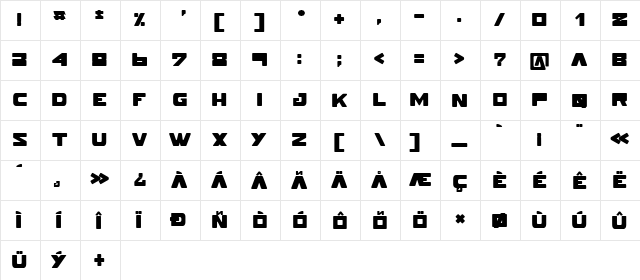
POKERFACE Regular
Design Context for POKERFACE Typeface
POKERFACE is a composed and adaptable typeface that performs quietly and consistently across a wide range of design contexts.